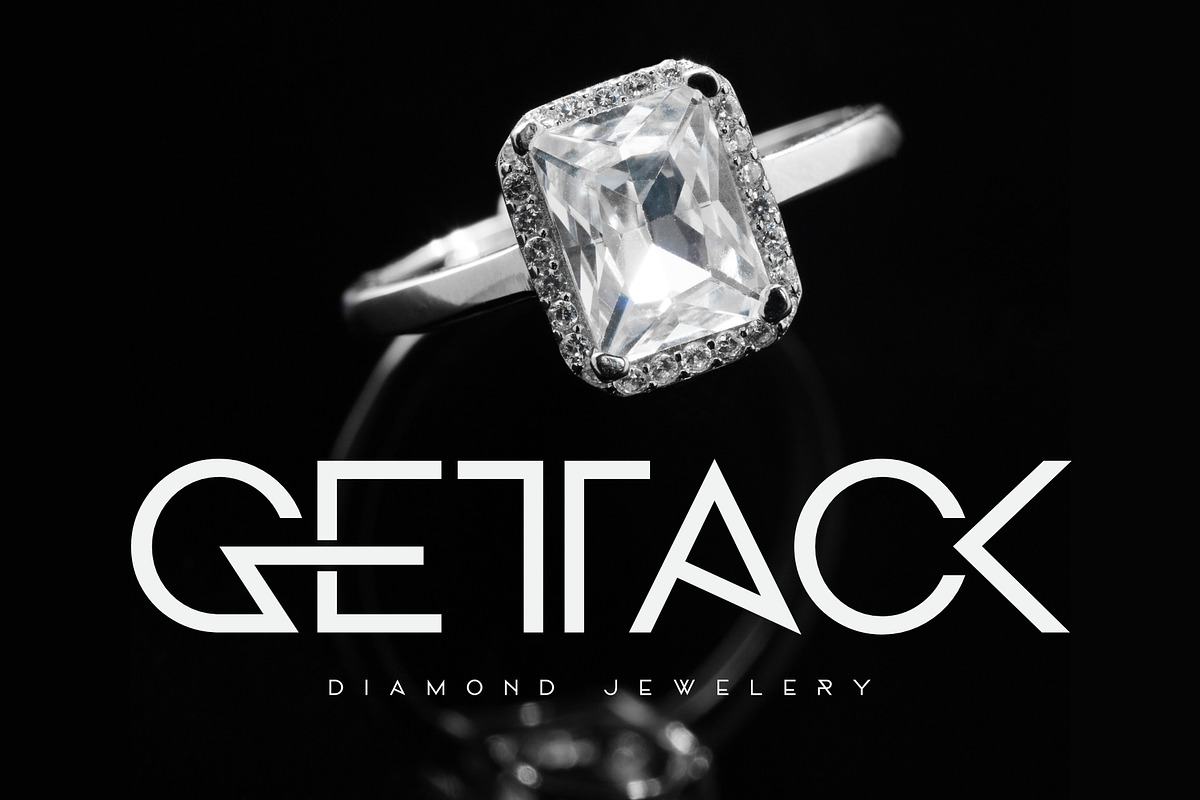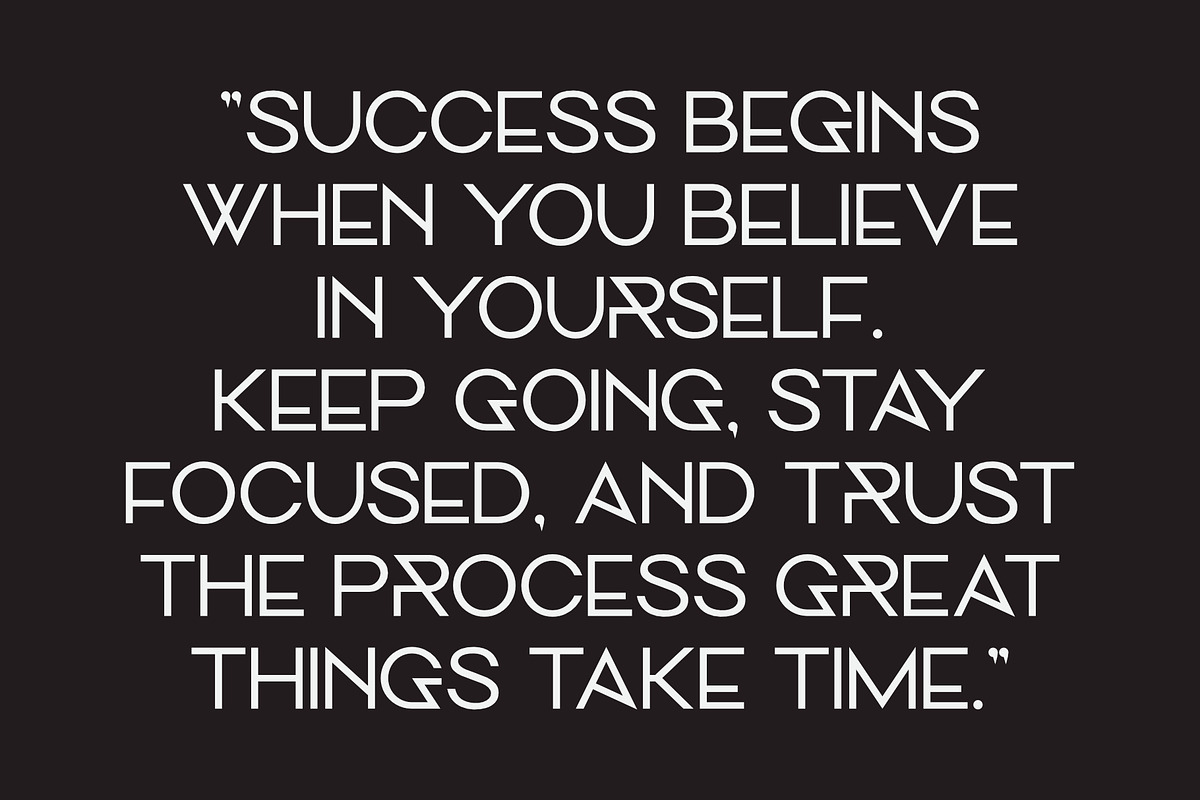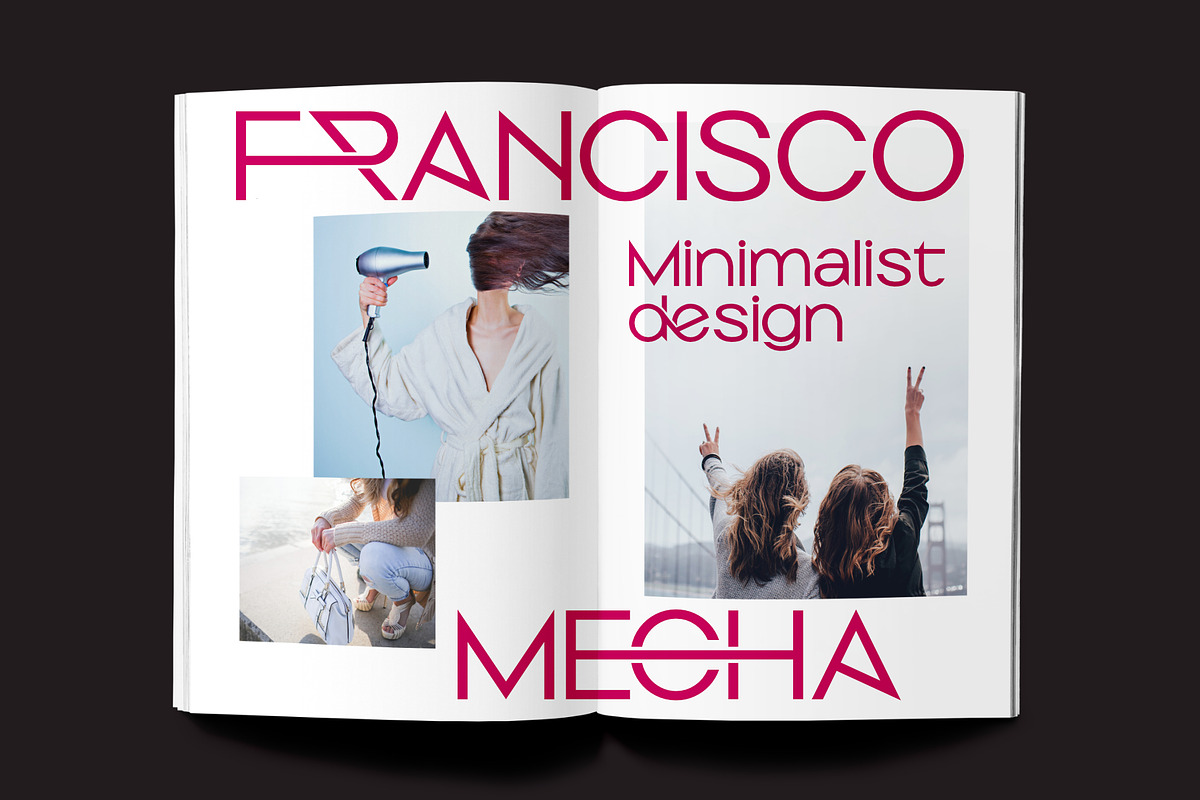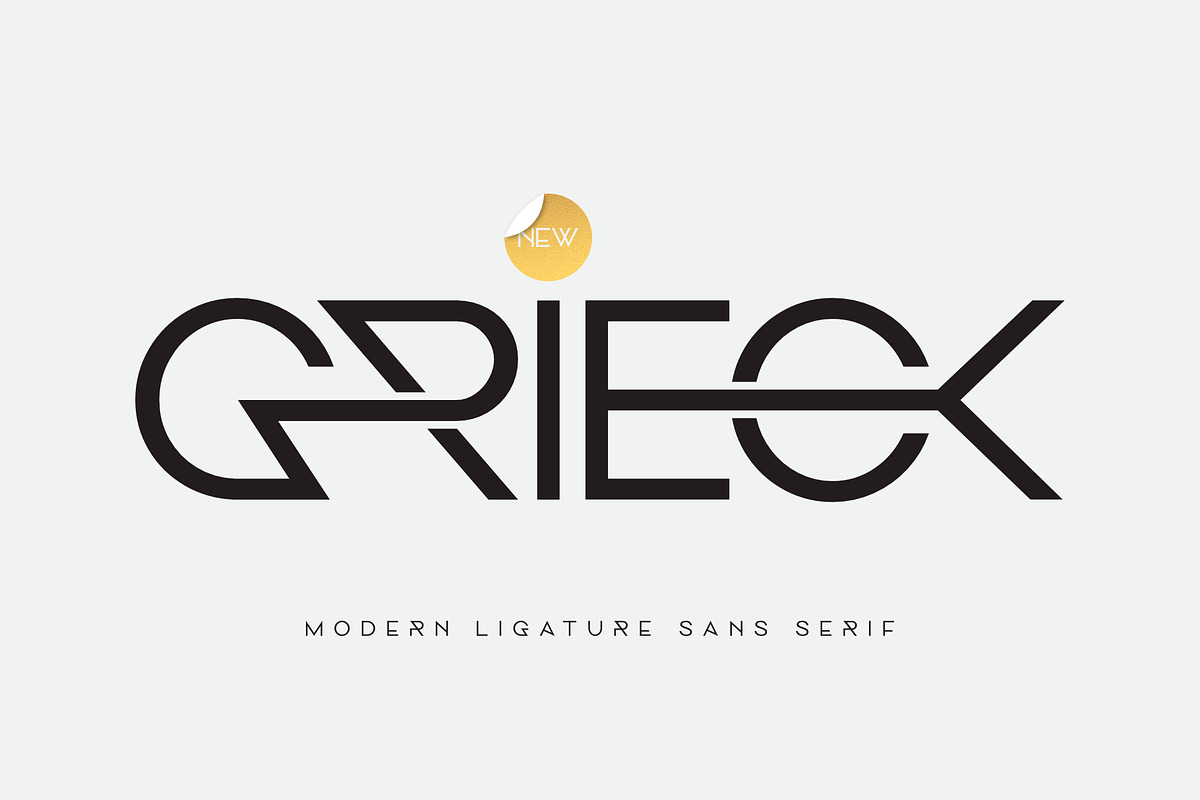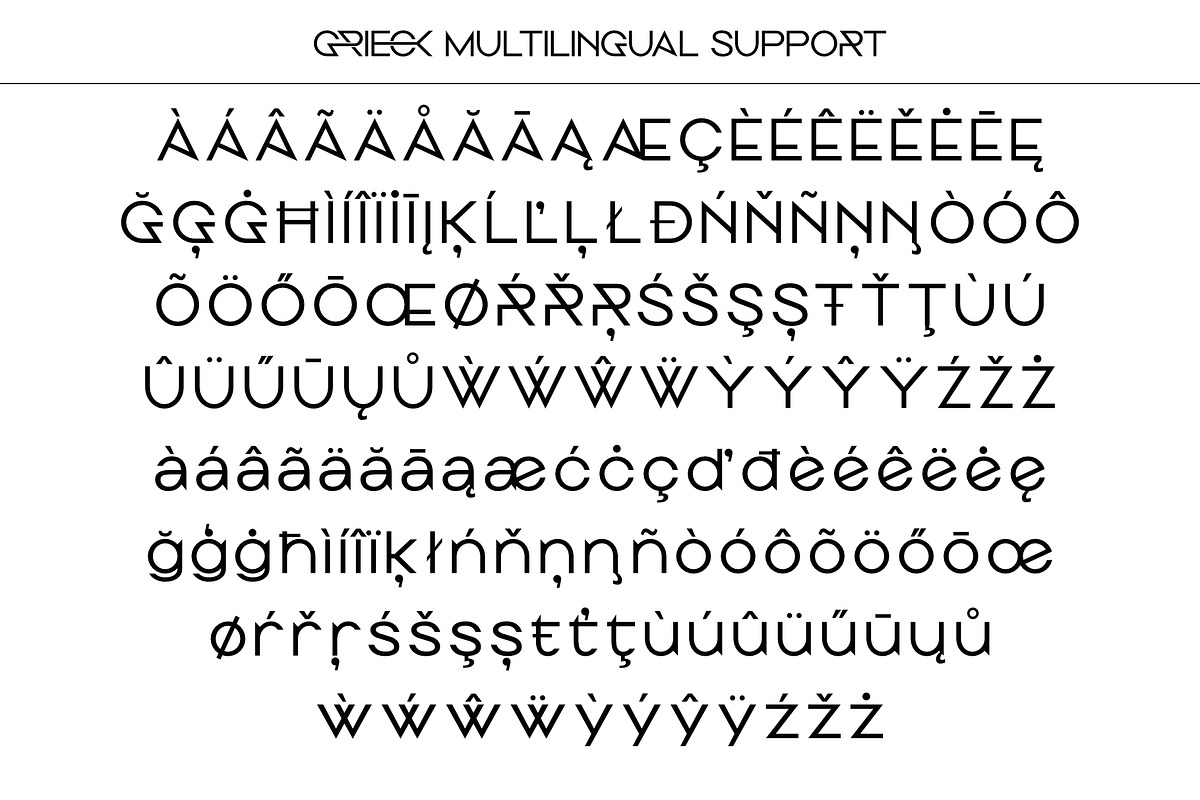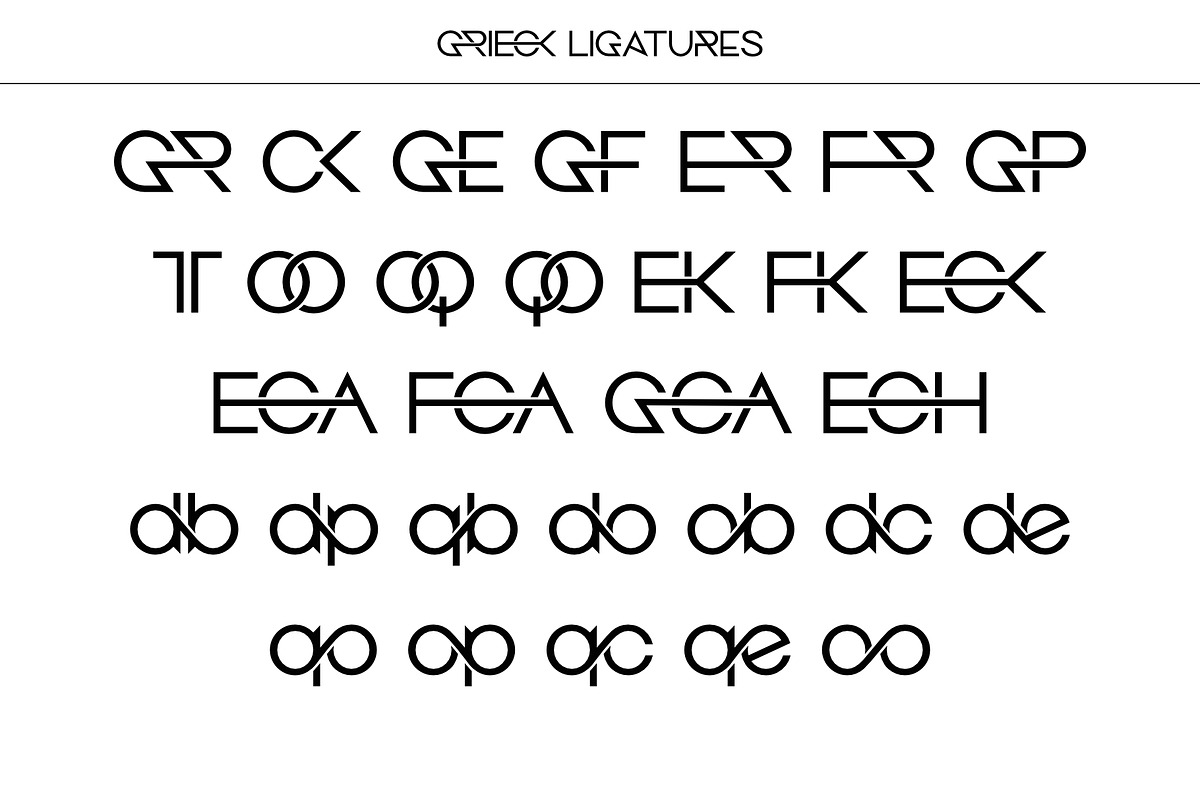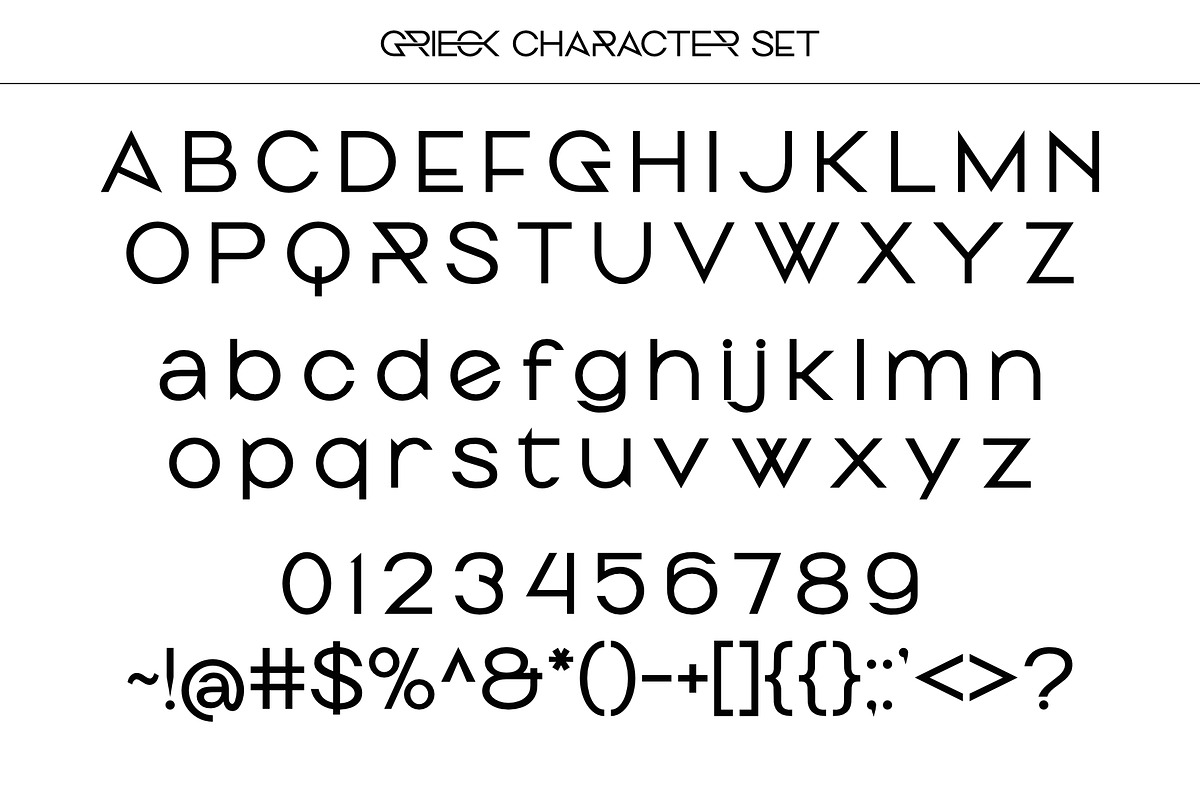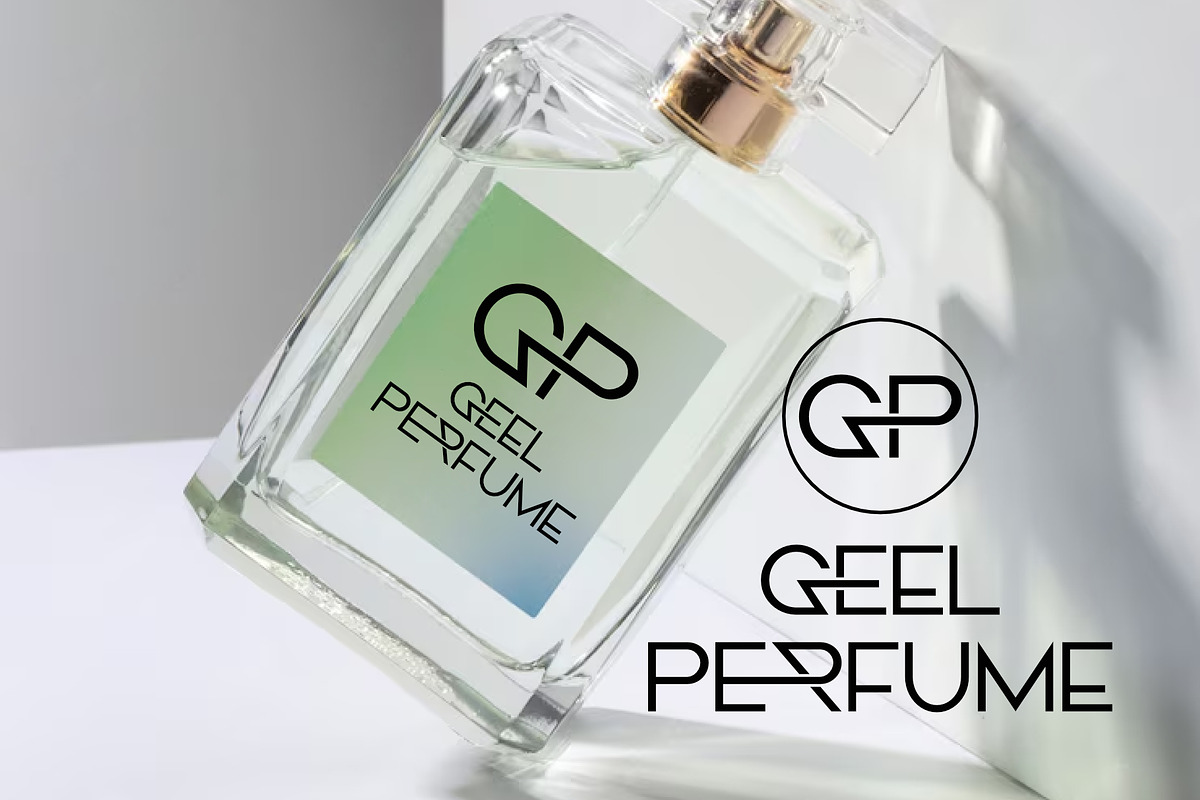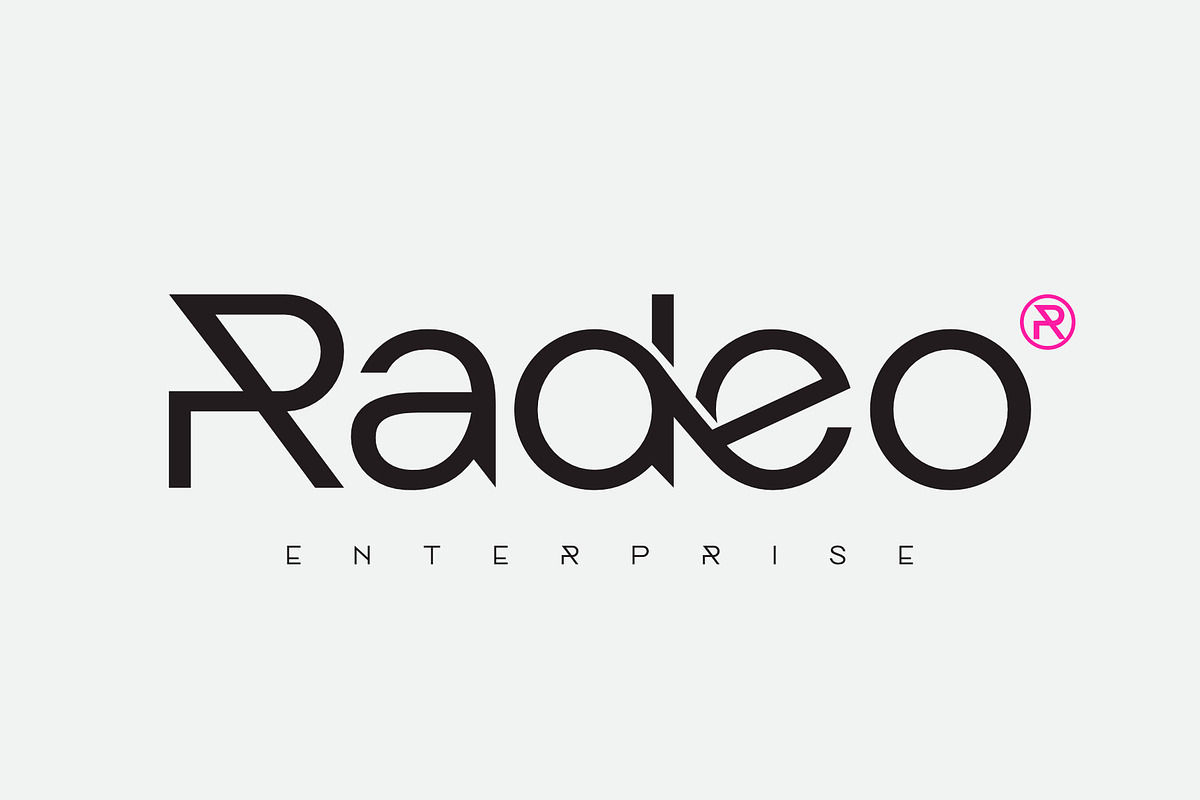
Grieck - Modern Ligature Sans Serif
Introducing Grieck – a modern and striking font designed to enhance your brand’s visibility. With its clean lines and dynamic aesthetics, Grieck delivers a modern, eye-catching look that’s perfect for creating impactful and memorable logos.
Key Features of Grieck:
- Bold Presence – Crafted for strong branding and logos that leave a lasting impression.
- Elegant Style – A fusion of contemporary sophistication with an artistic touch, adding a polished and refined look to your designs.
- Versatile Use – Ideal for logos, posters, headlines, and various graphic design projects.
- Unique Ligatures – Features distinctive ligatures that bring creativity and character to your typography.
- Modern Aesthetic – Minimalist yet powerful, ensuring your designs stand out with a sleek and stylish edge.
Elevate your brand with Grieck, a font that exudes sophistication and boldness. Whether you're designing logos, posters, or any graphic project, Grieck adds an elegant and contemporary touch. Make a statement with its sleek, modern design.